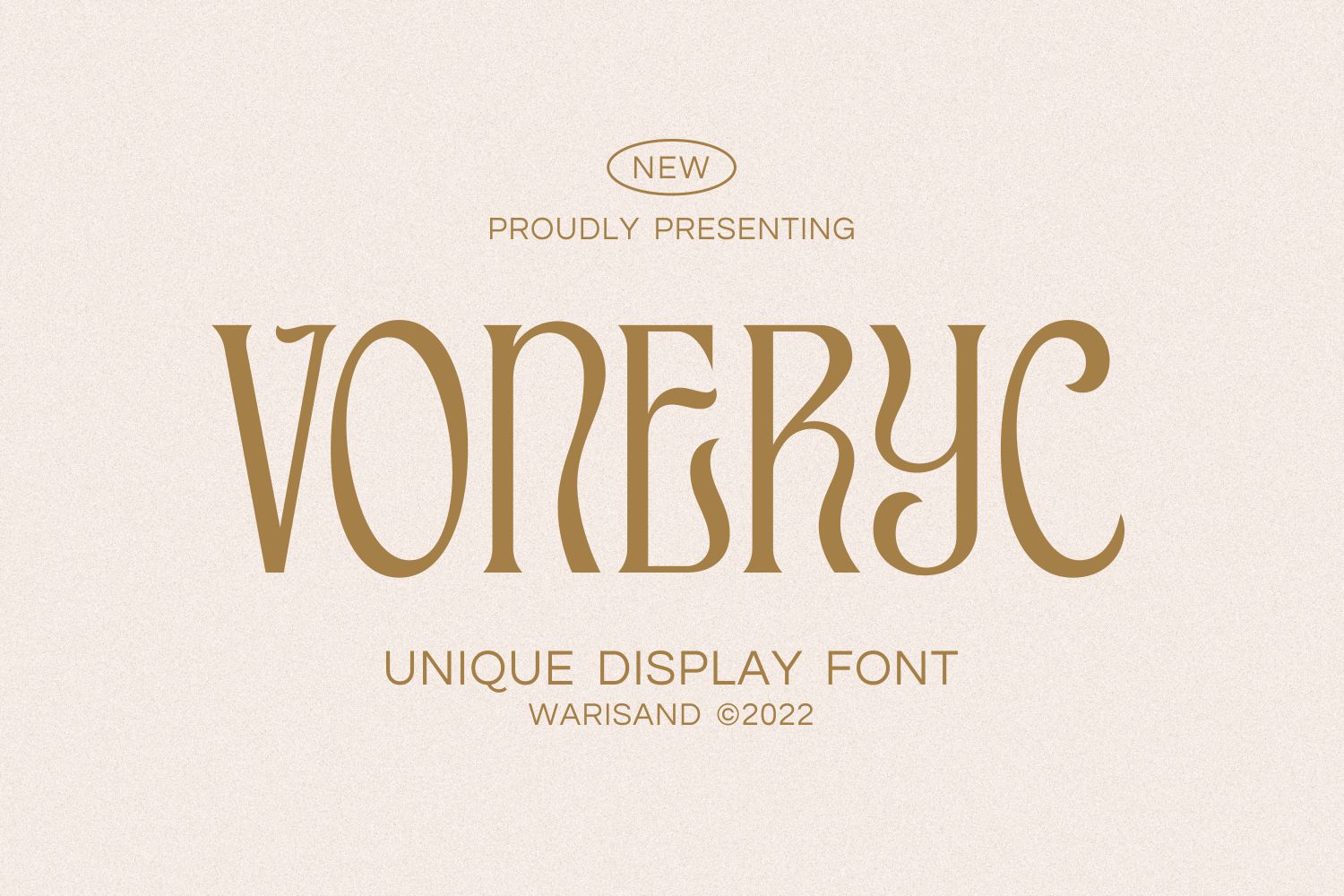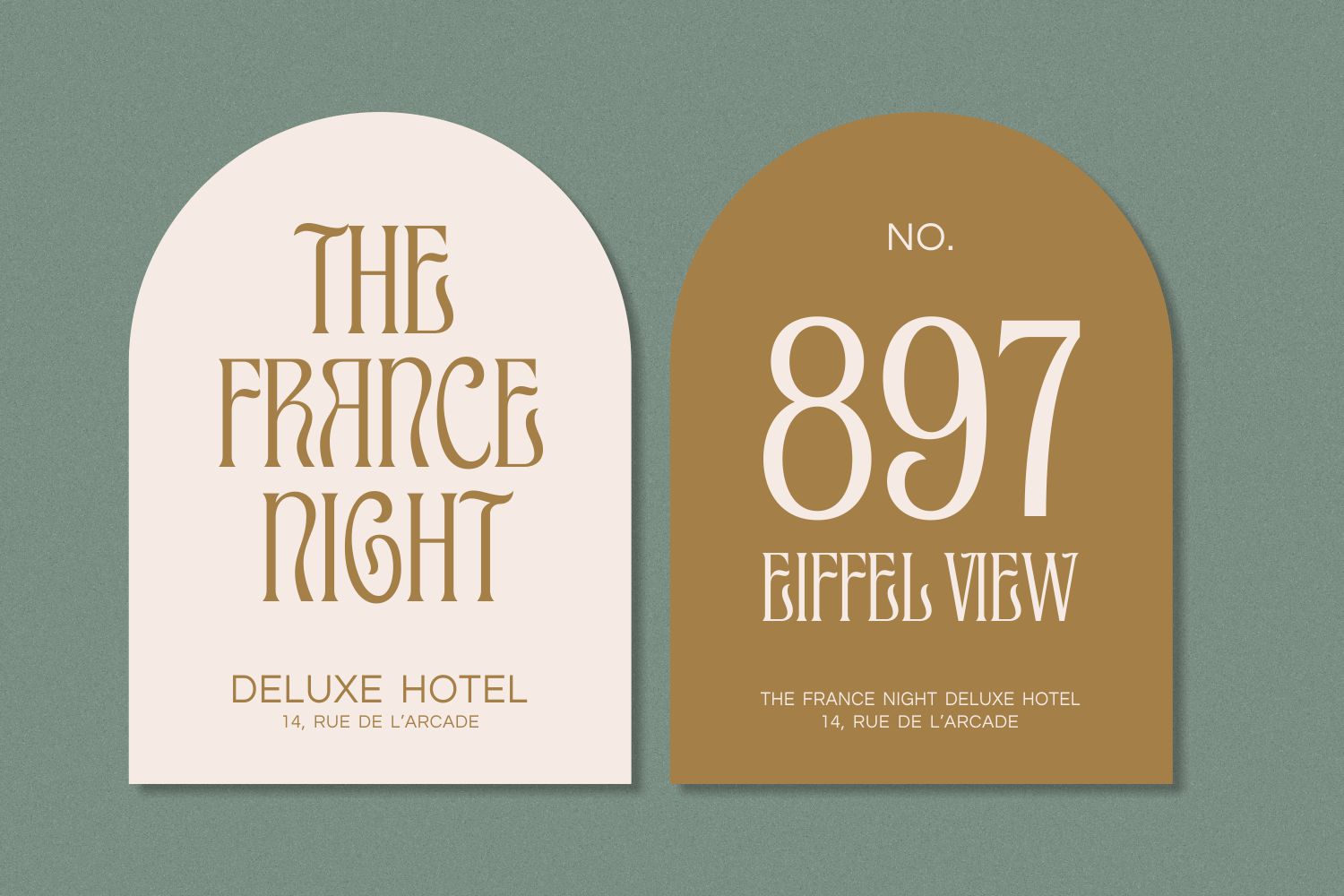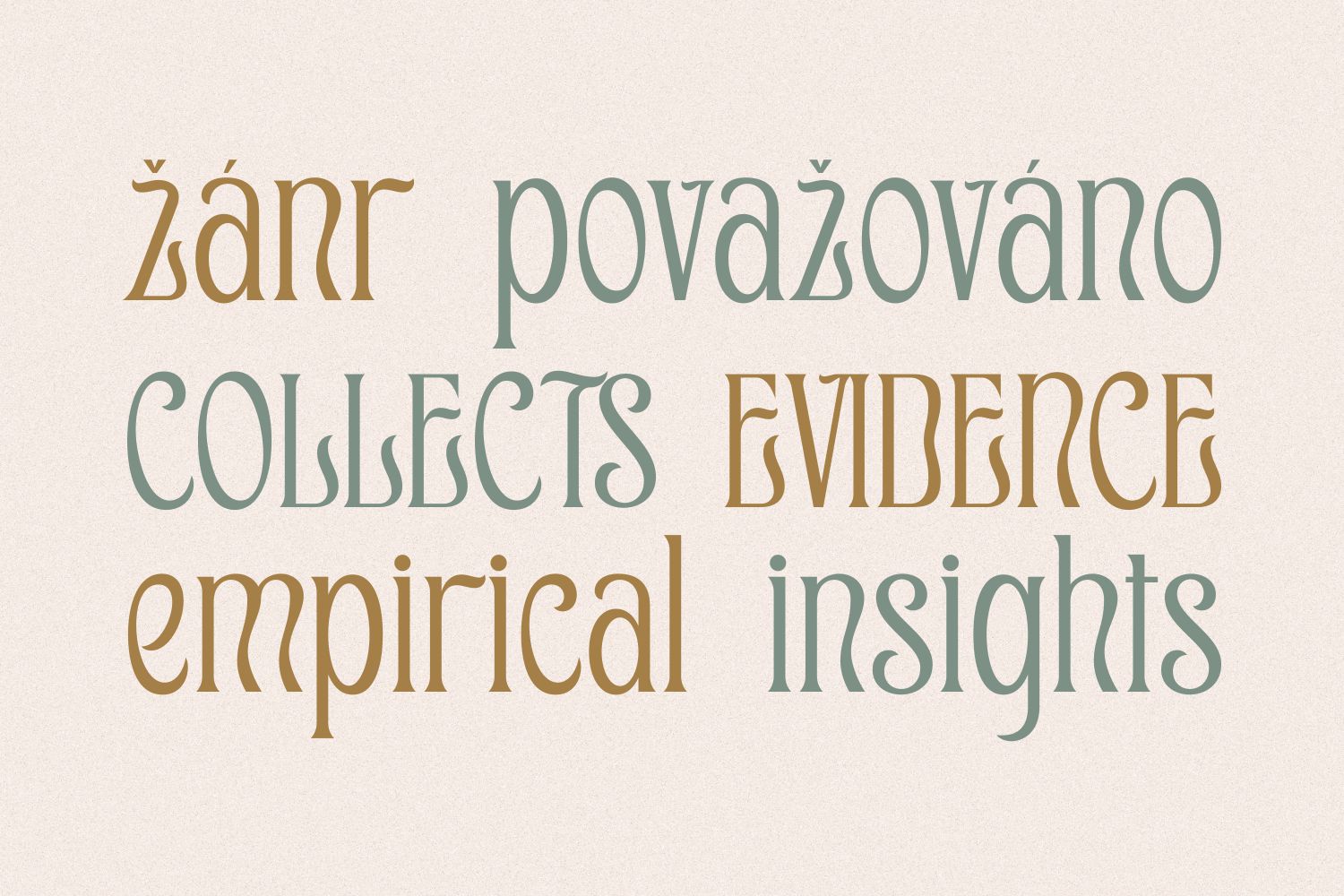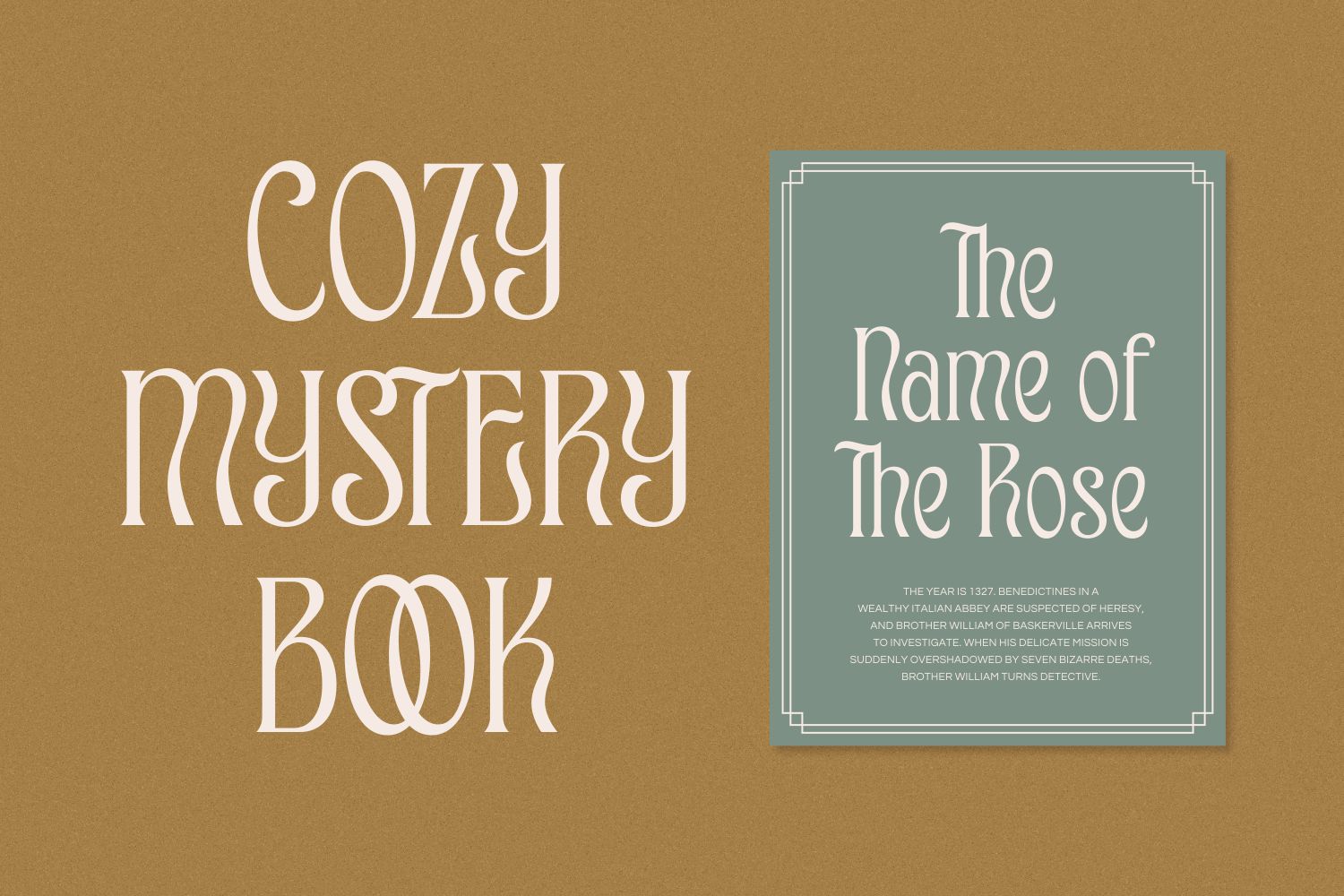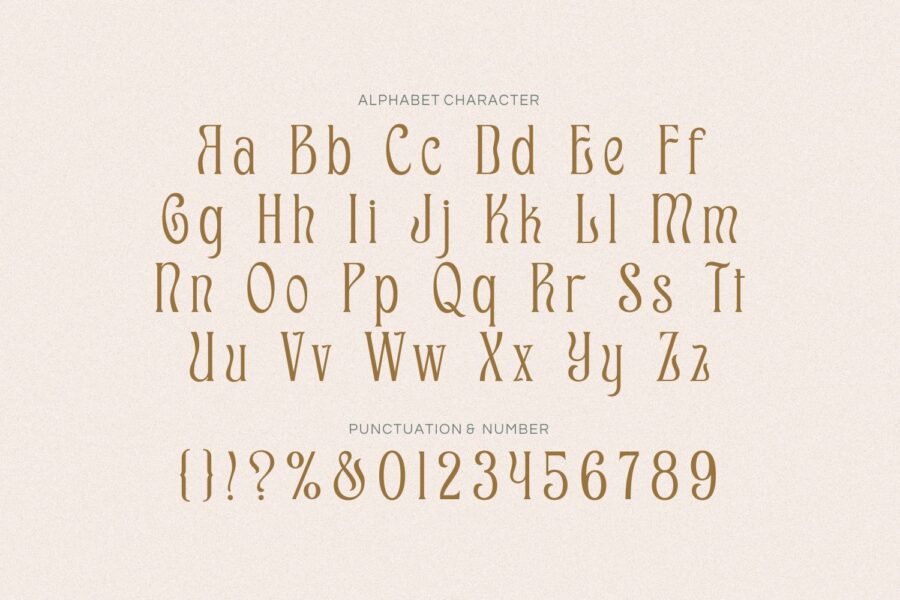
Voneryc is a unique and stylish display font that blends vintage elegance with a contemporary twist. Its tall, narrow proportions and distinctive curves create a refined yet artistic character that stands out in headlines, editorial layouts, or boutique branding. Each letter is thoughtfully designed with subtle flair, making the font visually engaging while maintaining excellent legibility.
Perfect for book covers, signage, hotel branding, or high-end packaging, Voneryc delivers a nostalgic charm with a modern sense of sophistication. Its multilingual support and stylish ligatures provide versatility for diverse creative projects, whether you’re designing for fashion, literature, or luxury branding.